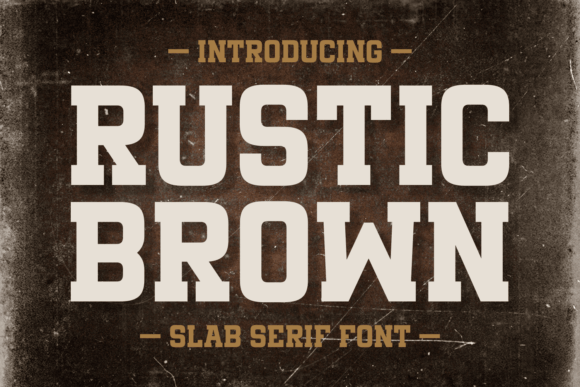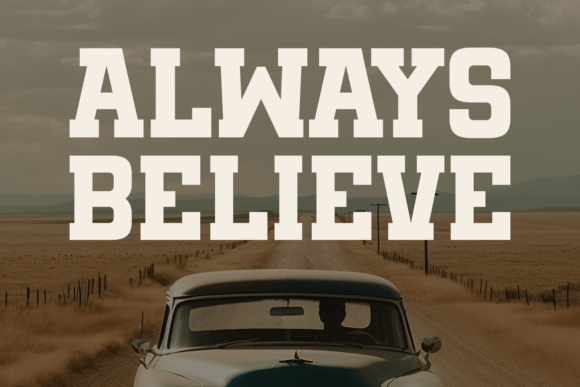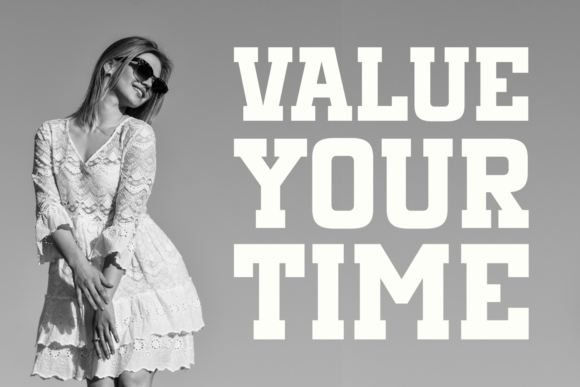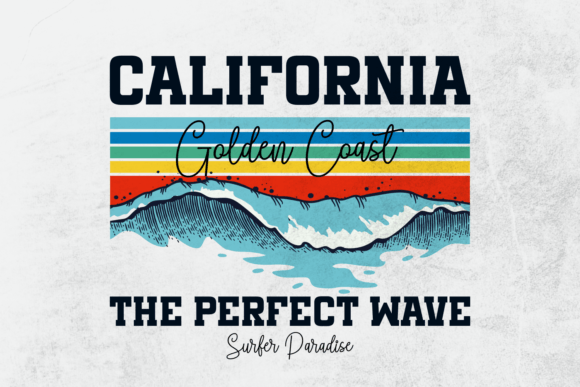
Rustic Brown Font: Bold Slab Serif for Vintage Logo Design
About the Rustic Brown Font
Explore the possibilities with Rustic Brown Font, a font that offers both beauty and functionality. Rustic Brown is a strong and straightforward slab serif font that brings a touch of warmth and authenticity to your text. With bold, robust lettering, it adds a rustic charm to any project, making it ideal for conveying a sense of rugged simplicity. Perfect for headlines, signage, or projects that require a no-nonsense yet inviting typeface, Rustic Brown ensures your message is delivered with a touch of down-to-earth style.
Rustic Brown excels in headlines, logos, and short, impactful text for brands emphasizing handcrafted goods, outdoor adventures, or rustic aesthetics. Its bold strokes work well on signage and packaging where readability at a distance is crucial. However, its strong weight makes it less suitable for body text or lengthy paragraphs; smaller sizes can become difficult to read.
This font’s personality is robust and dependable, conveying a sense of honest craftsmanship. To complement this, pair Rustic Brown with a clean sans-serif like Open Sans for body text, creating a strong contrast. For a more refined look, consider pairing it with a delicate script font for secondary elements, adding a touch of elegance without sacrificing Rustic Brown’s core strength.
Alternatively, a geometric sans-serif like Montserrat can offer a modern counterpoint to its rustic charm. Avoid pairing it with other slab serifs, which might create visual overload.
Rustic Brown Font Usage Examples
Rustic Brown Font Example